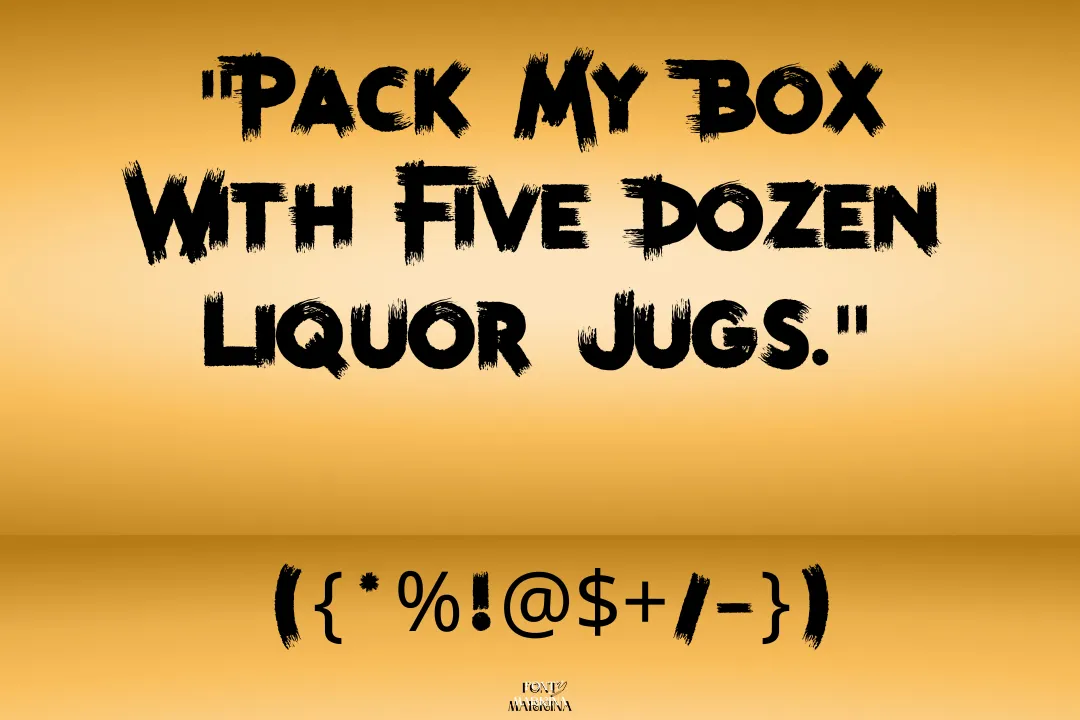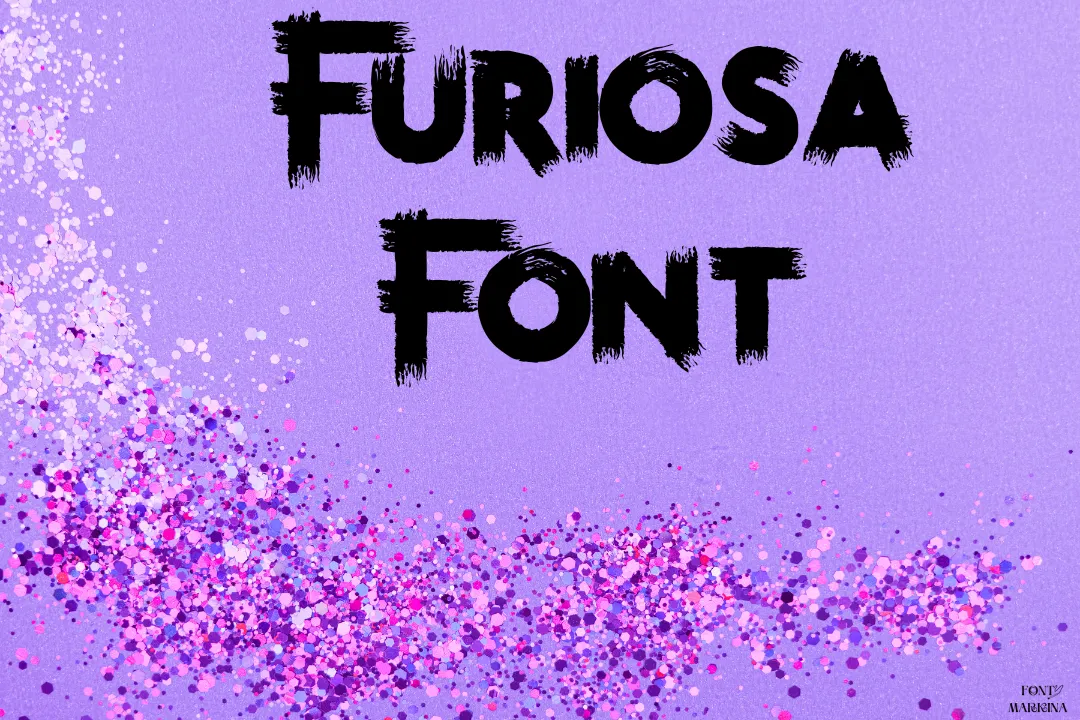
Here, for more satisfactory responses in the designing industry, we present Furiosa Font. Because it has an engaging look that is not seen anywhere else in any type of texture. The style of this texture and numerals are different compared to other textures.
Its copy and paste function are especially beneficial in case of text-related designs. Its unique letterform makes it more traditional for the vast variety of projects. The neon font has almost all the features related to this one.
This family introduces an online tool known as a generator tool that is very effective in the case of different colorful graphic designs. It is known for its X height and odd shape all across the globe.
Uses of Furiosa Font
Because of the different and odd look and new font style this texture got popular among everyone in a short period. All web designers use this typography in the field of designing new websites and changing different themes. Metal Gear Solid font is another texture of the same classification which is ideal for making pairing.
In the designing industry, you can pick out this texture and use it in cards, certificates, gift packing sheet designs, label boards, and even sign boards. Not enough, this family is typically used for writing articles related to magazines.
| Name | Furiosa Font |
| Designer | Iconian Fonts |
| Style | Techno |
What is the type of Furiosa Font?
This texture lies in the classification of the Techno family. This has its own new shape and style.
Where we can use Furiosa Font?
You can utilize this texture in a vast variety of projects like cards, emblems, and so on.
What is the generator tool of Furiosa Font?
An online tool is known by the name generator tool that is very useful for graphic designs.